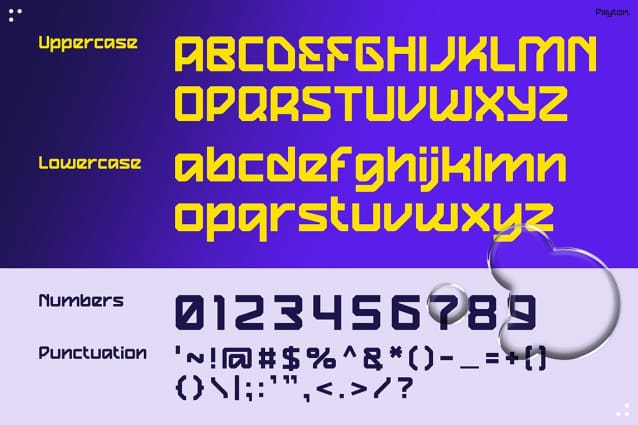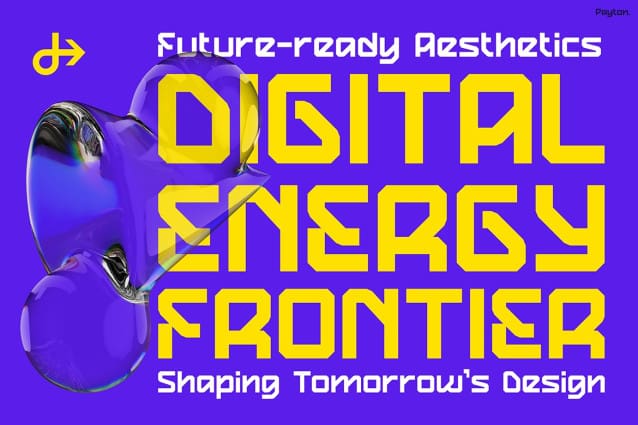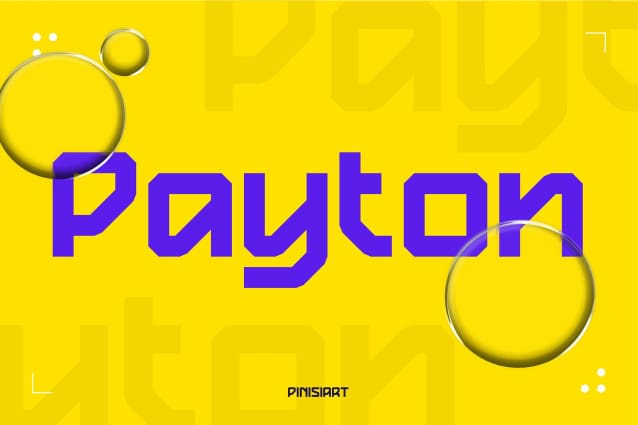
Payton Font is more than just typography — it’s a bold expression of futuristic creativity. With its strong, sharp, and geometric letterforms, this font instantly captures the spirit of innovation and digital sophistication. Moreover, the contrast between clean straight lines and rounded corners creates a look that is both sleek and approachable, perfectly merging modern aesthetics with high-tech energy.
Every curve and corner feels intentional, reflecting a design language inspired by the digital revolution — from smart tech and VR interfaces to minimalist architecture and cyber-inspired branding. Therefore, Payton is not only visually powerful but also emotionally compelling. It conveys a sense of movement, progress, and confidence, which makes it ideal for projects that aim to represent the future. Furthermore, whether you’re designing bold posters, eye-catching social media visuals, or cutting-edge app interfaces, Payton ensures your message stands out with futuristic charm and precision.
Instagram Font Payton is an exceptional choice for designers, creators, and forward-thinking brands who want to communicate strength, style, and innovation. In fact, it’s perfect for:
Tech startups that want to showcase their modern and digital-driven identity.
Content creators seeking to elevate Instagram posts or YouTube thumbnails with sleek, futuristic typography.
Marketing professionals and branding specialists aiming for a clean yet commanding design style.
Fashion brands, music producers, and creative agencies that desire a fresh, trend-forward look.
In addition, Payton’s versatility allows it to adapt effortlessly to multiple uses — from futuristic product packaging to brand logos, digital posters, event promotions, and UI design. As a result, every letter becomes more than text; it becomes a visual statement.
Ultimately, your designs deserve a font that represents progress and innovation. Instagram Font Payton does exactly that. It gives your brand a distinctive voice that resonates with modern audiences. Moreover, its futuristic shapes and confident geometry turn any layout into a bold masterpiece. So why settle for less when you can lead the way? Get Instagram Font Payton today, and let your visuals speak the language of tomorrow — dynamic, sharp, and unforgettable.